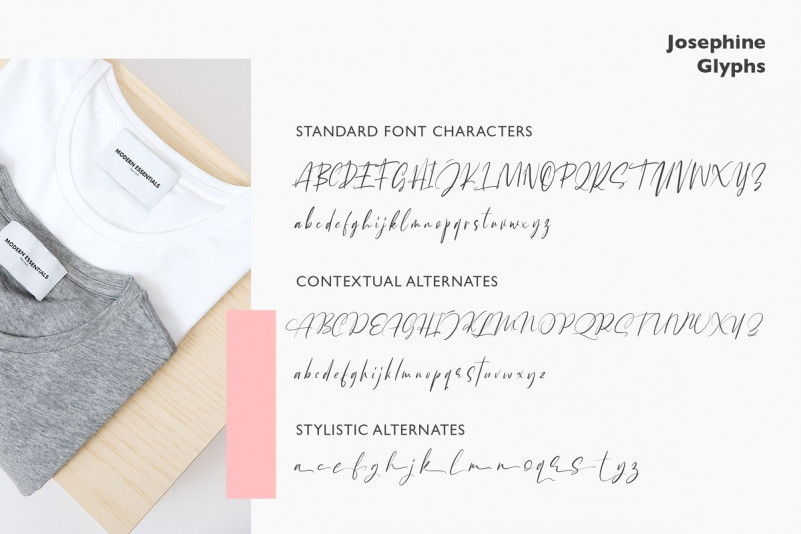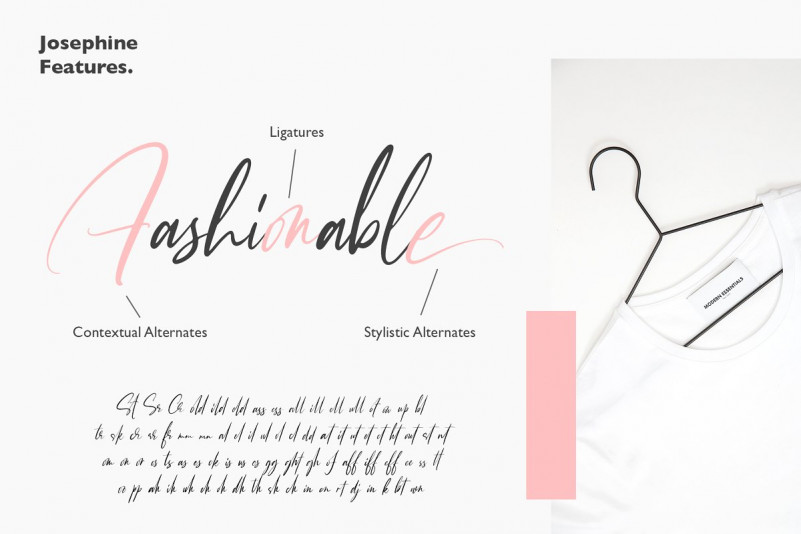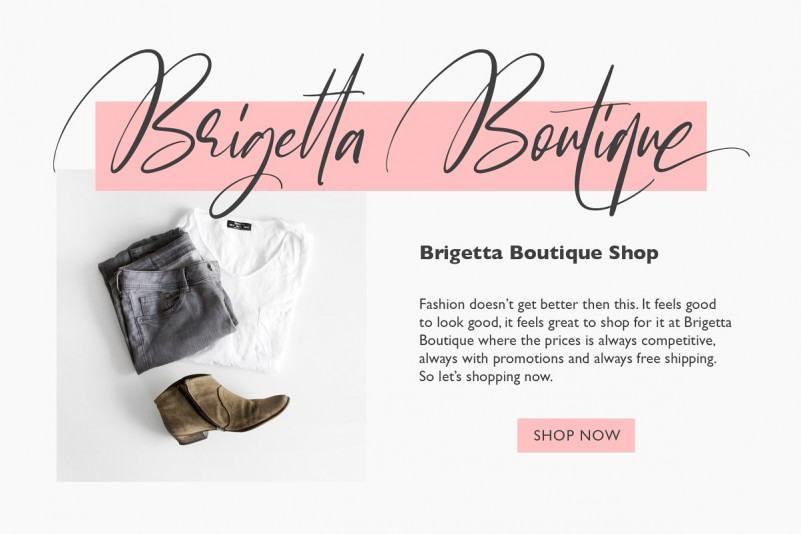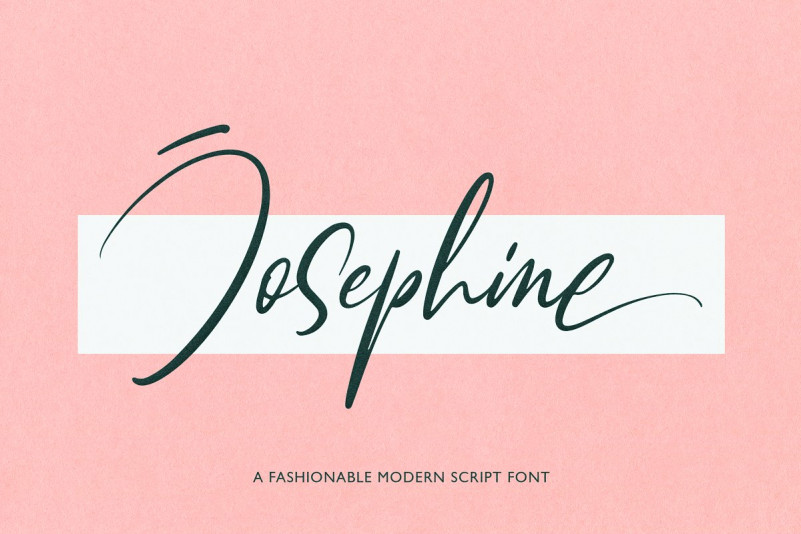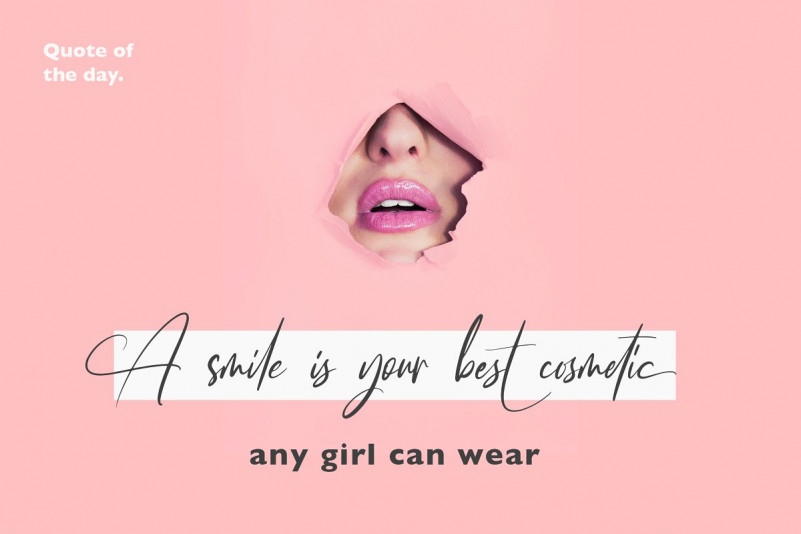
Josephine Script Font
Hi Font Lover! Thank you for looking Josephine Font, is a fashionable modern script font. Give your designs an authentic handcrafted feel. Josephine is a modern script typeface that every single letter contains beautiful characters alternates and feature ligatures. This font come with 70+ Ligatures, Contextual alternates, and Stylistic alternates. This font is stylish, fresh and ideal for adding the special look to your designs.
Josephine font that is special for fashion and matches applies in some designs such as the logotype, brand, magazine, website or blog headlines, packaging, branding, quotes, invitation cards, greeting cards, business cards, and wedding more.